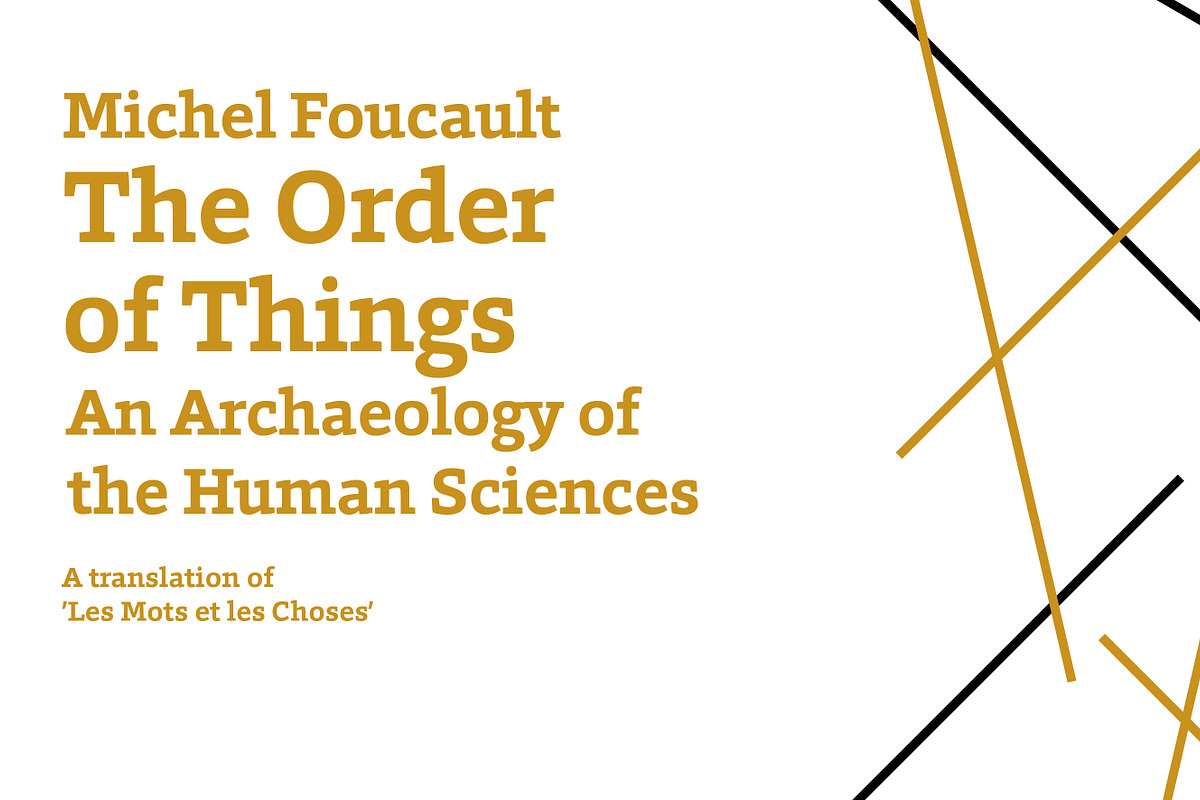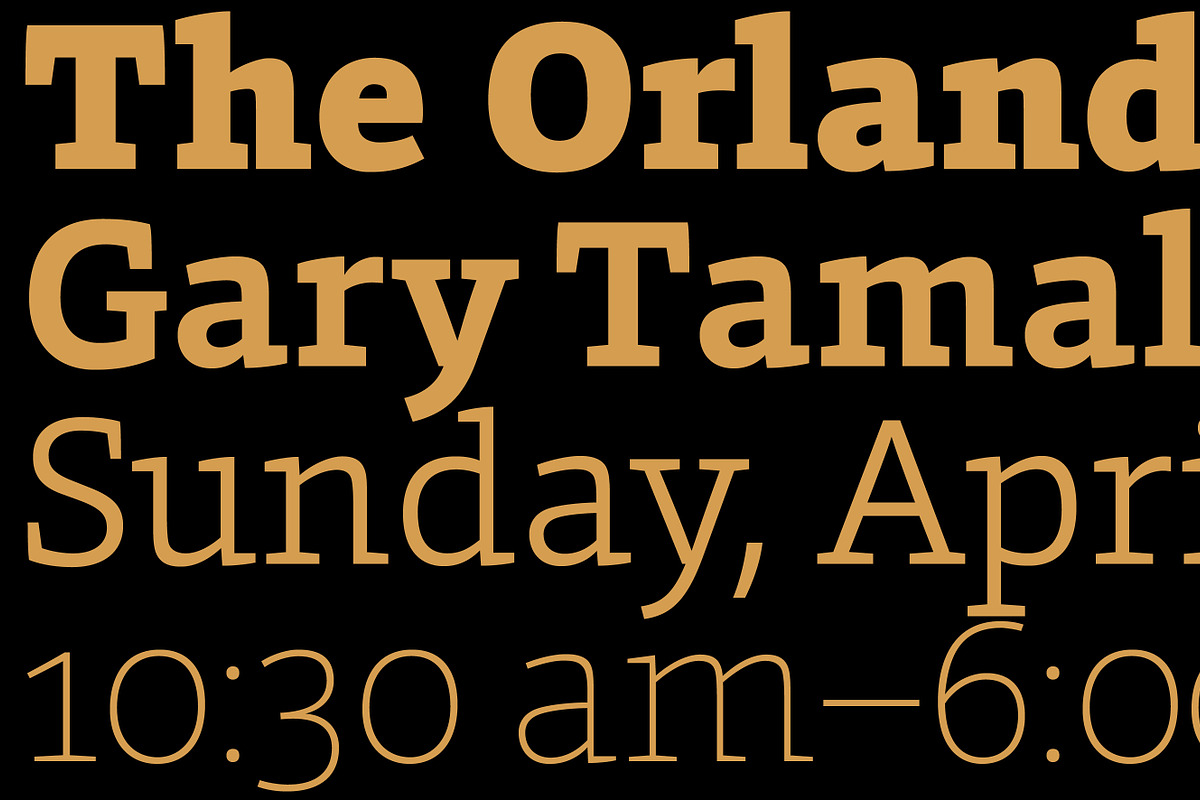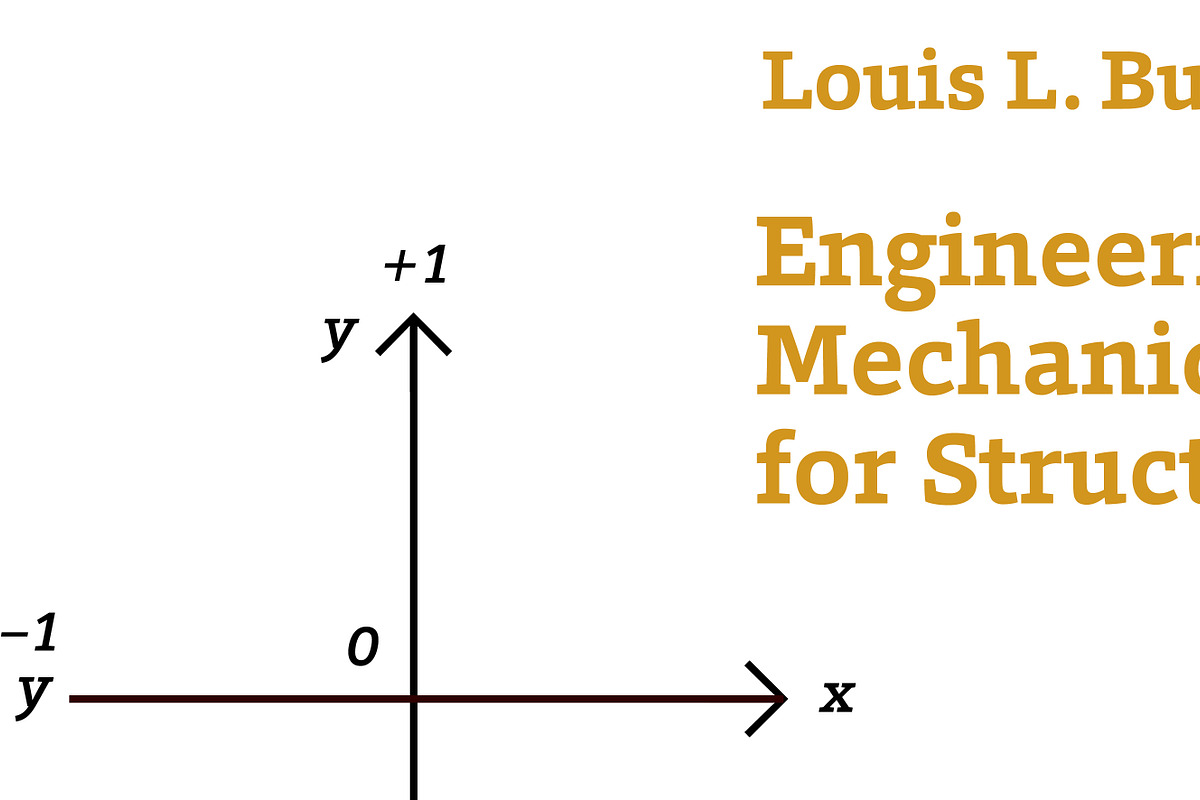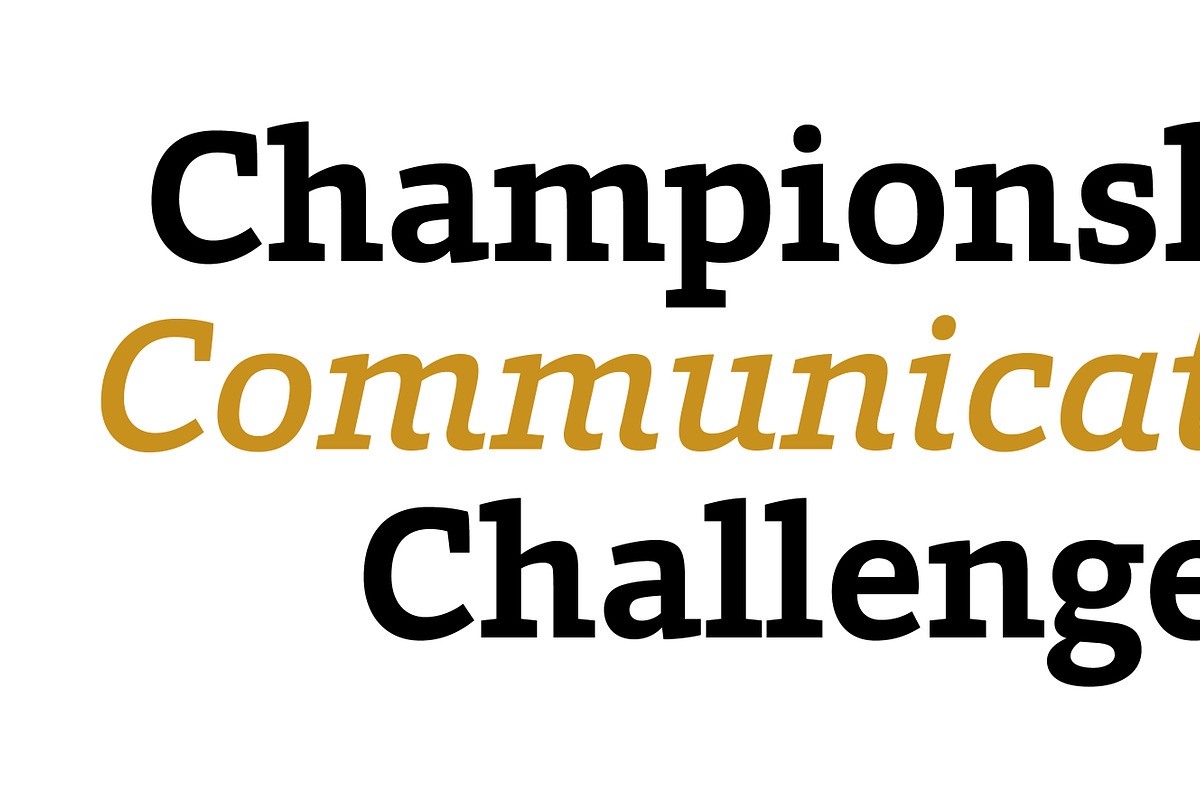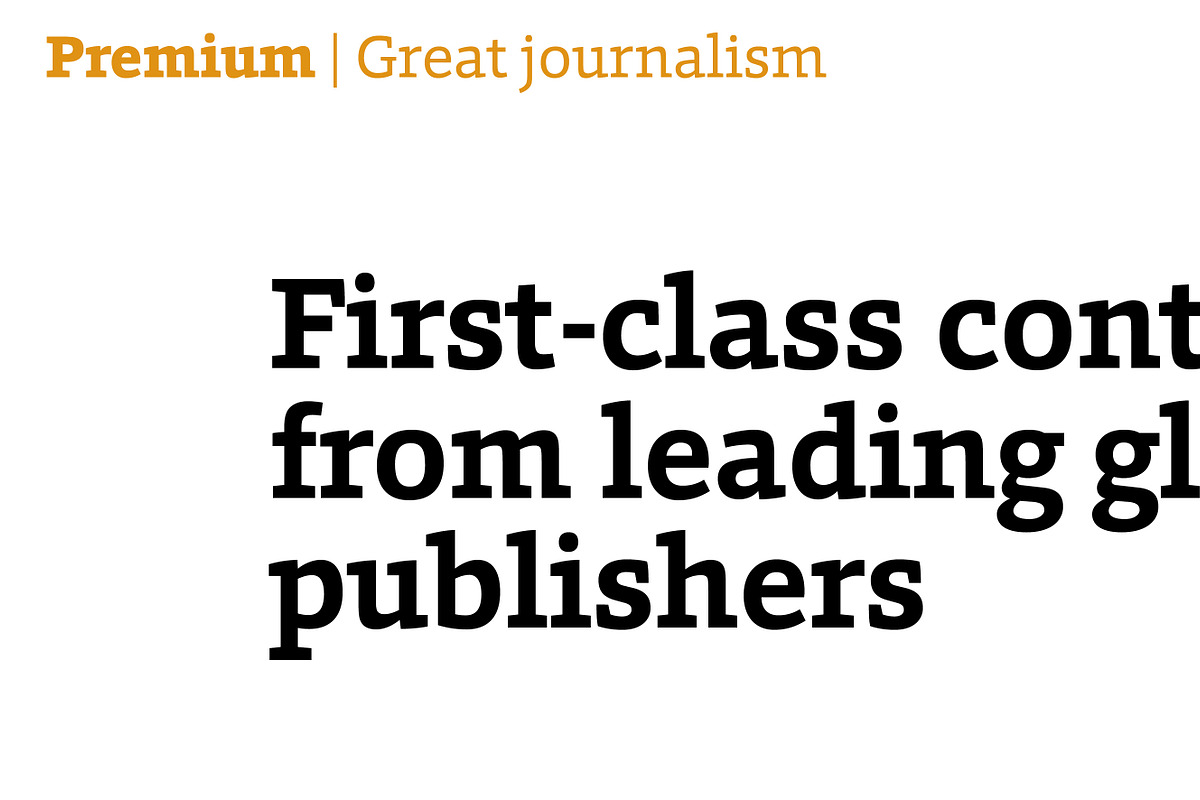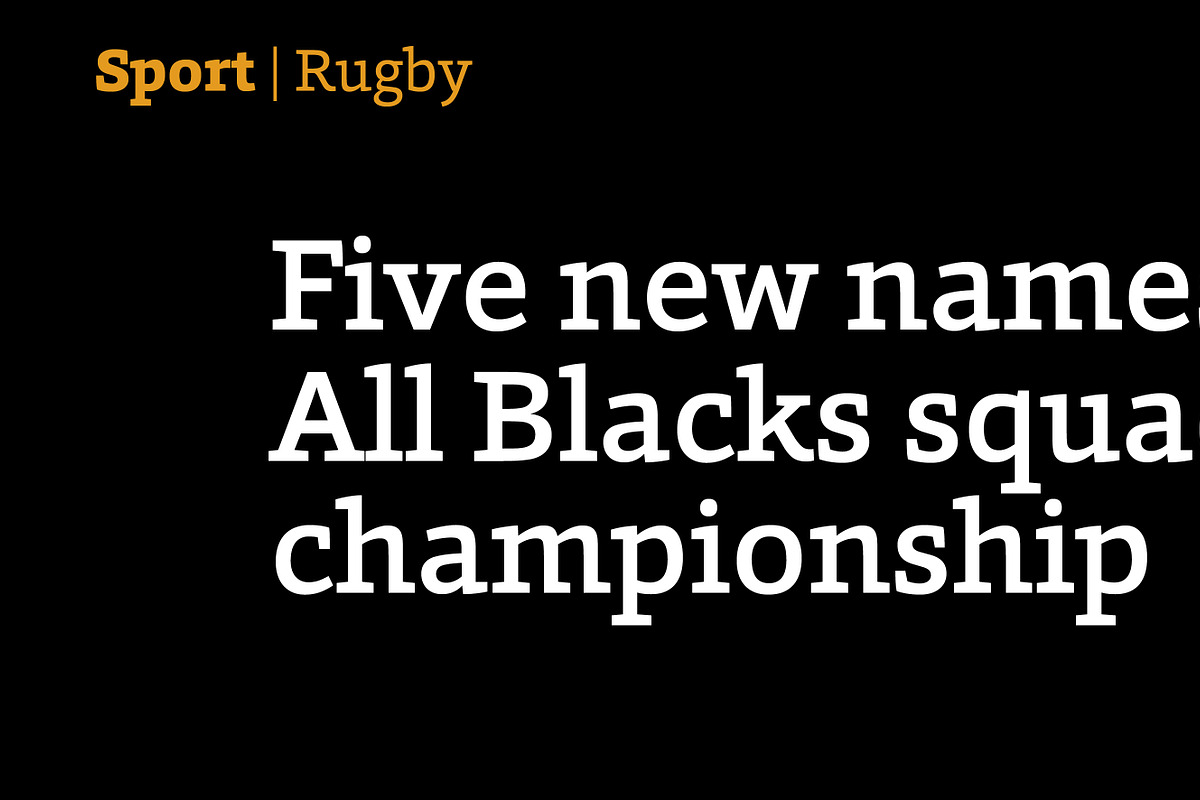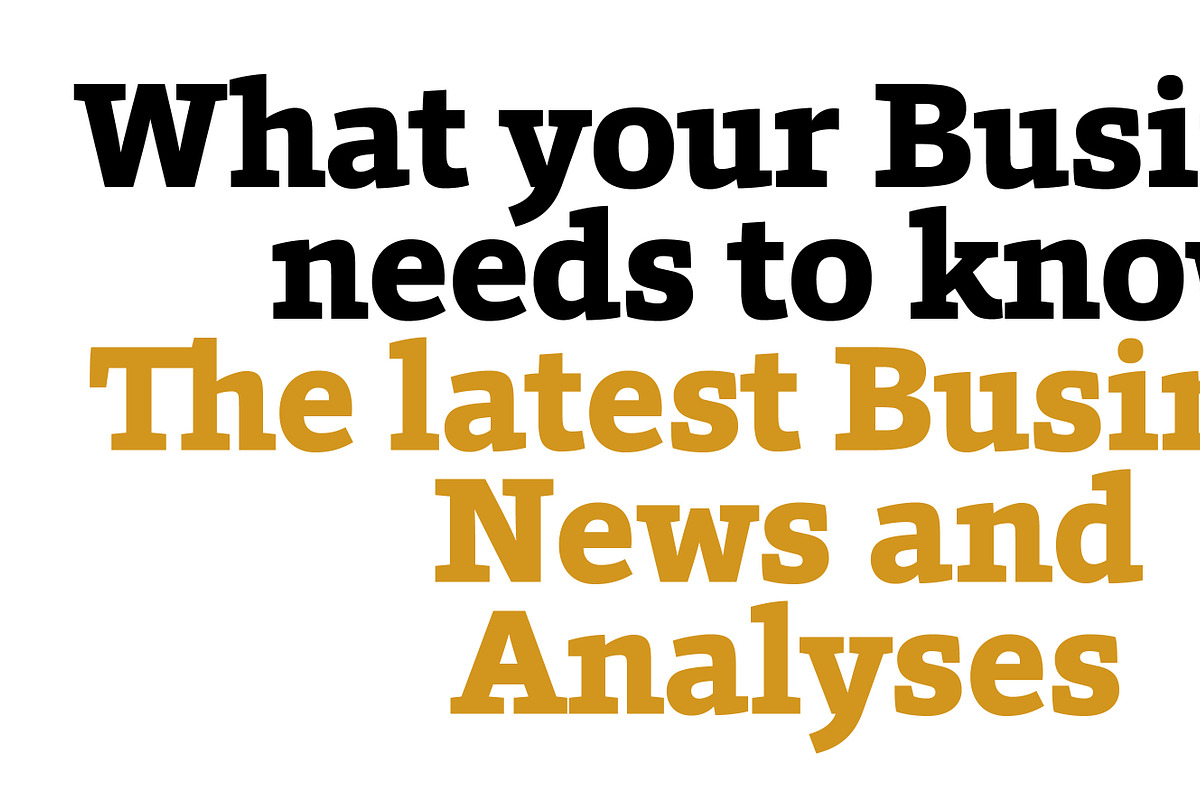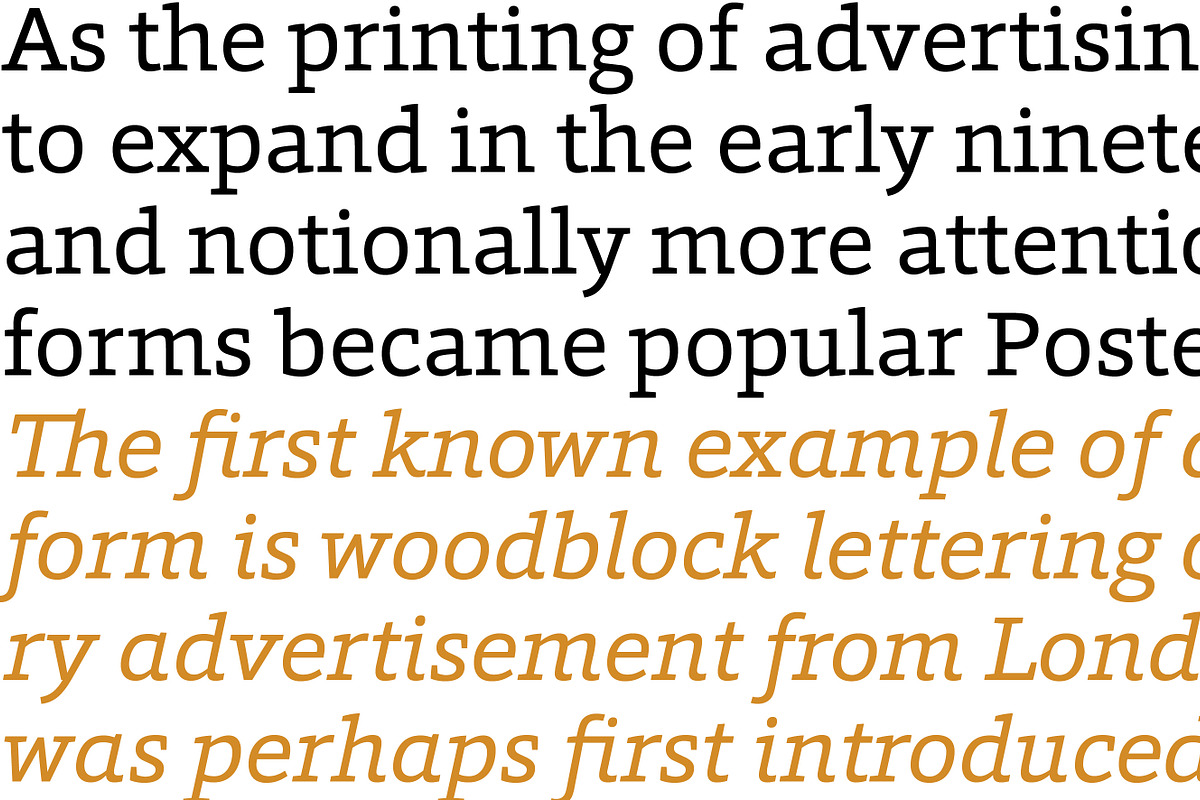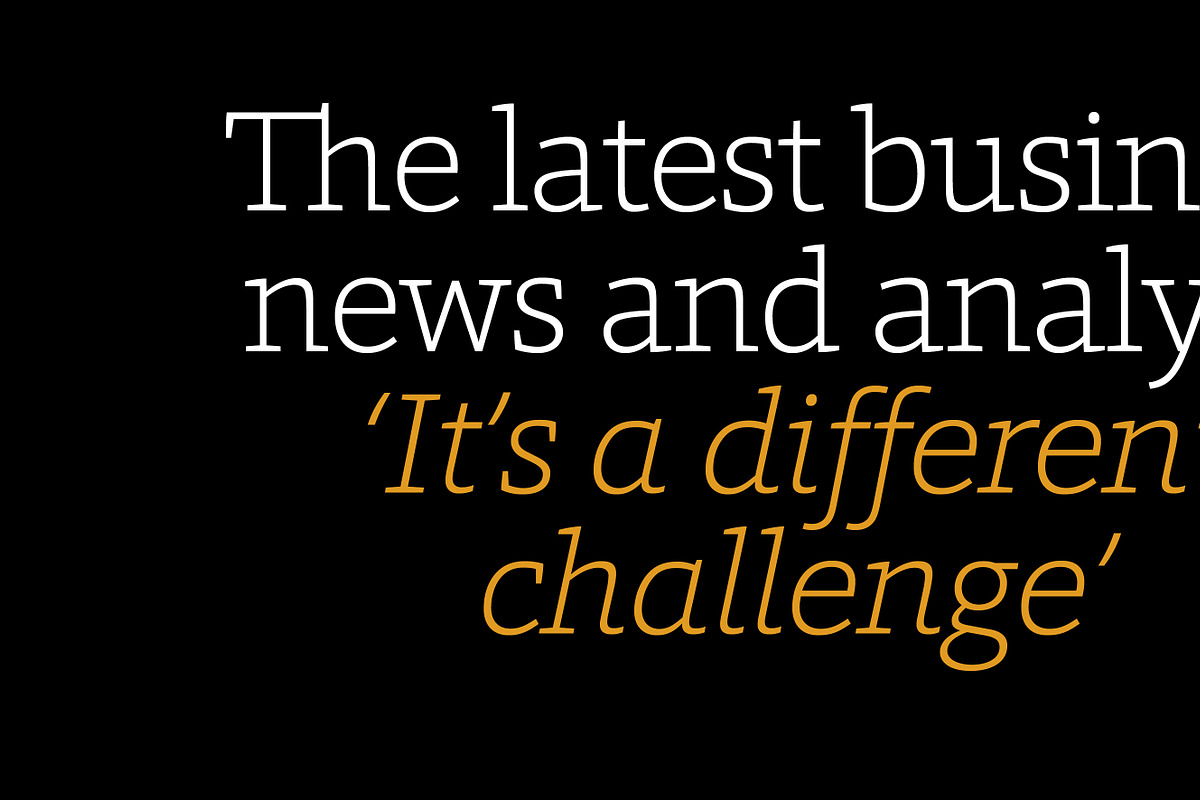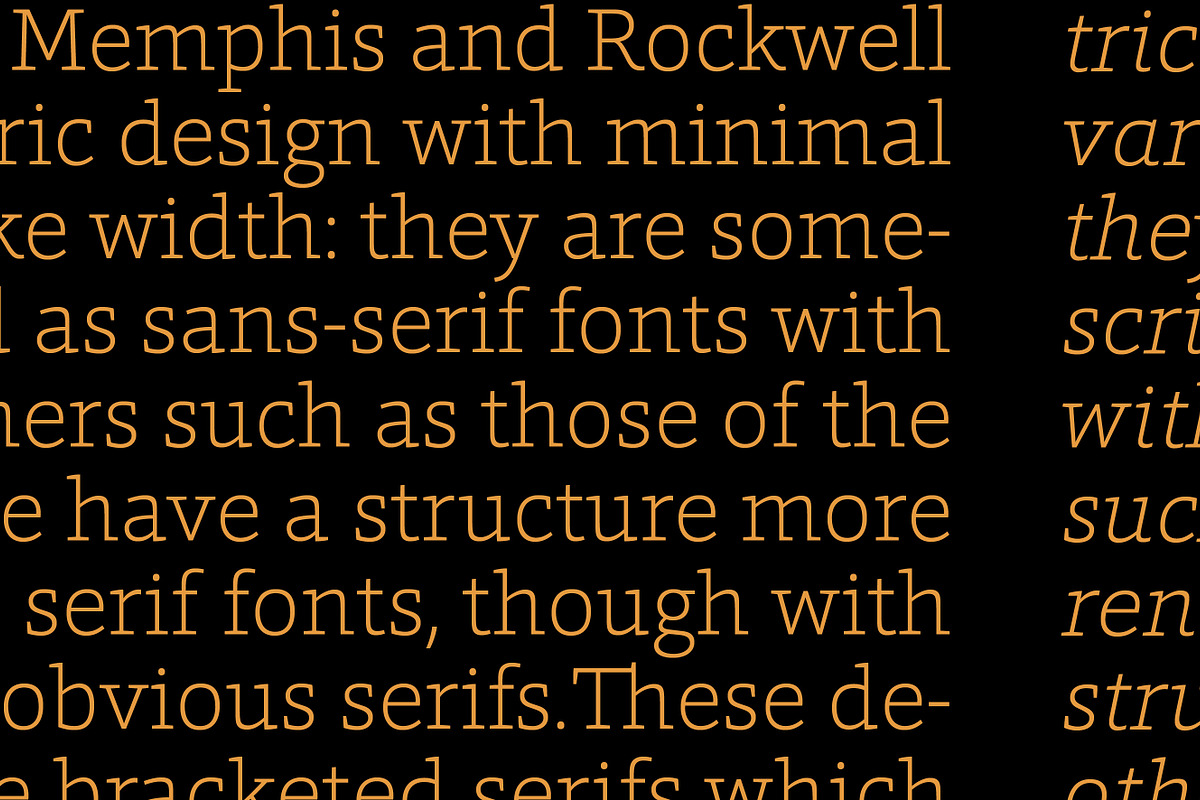
Foro
Foro is a humanist slab serif font designed in 2012. It features a warm and inviting aesthetic, with less harshness than typical slab serifs. Foro's clear details make it suitable for both text and display sizes.